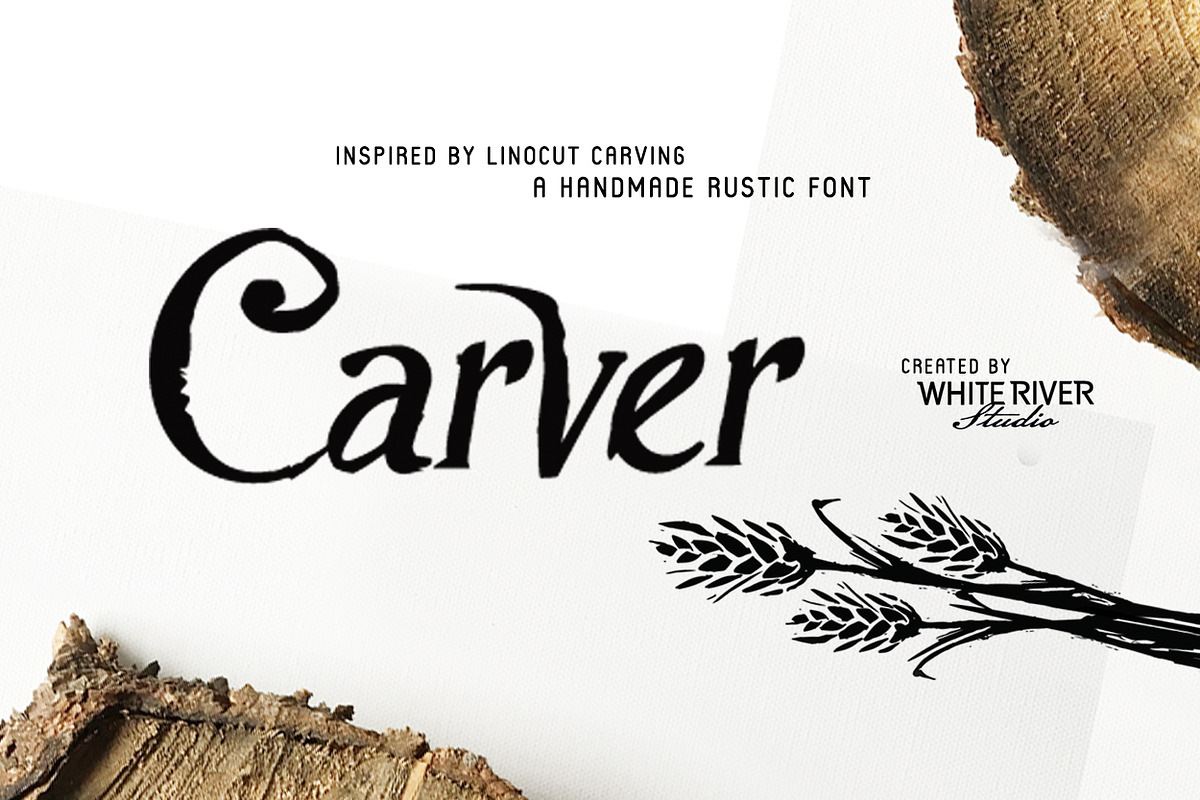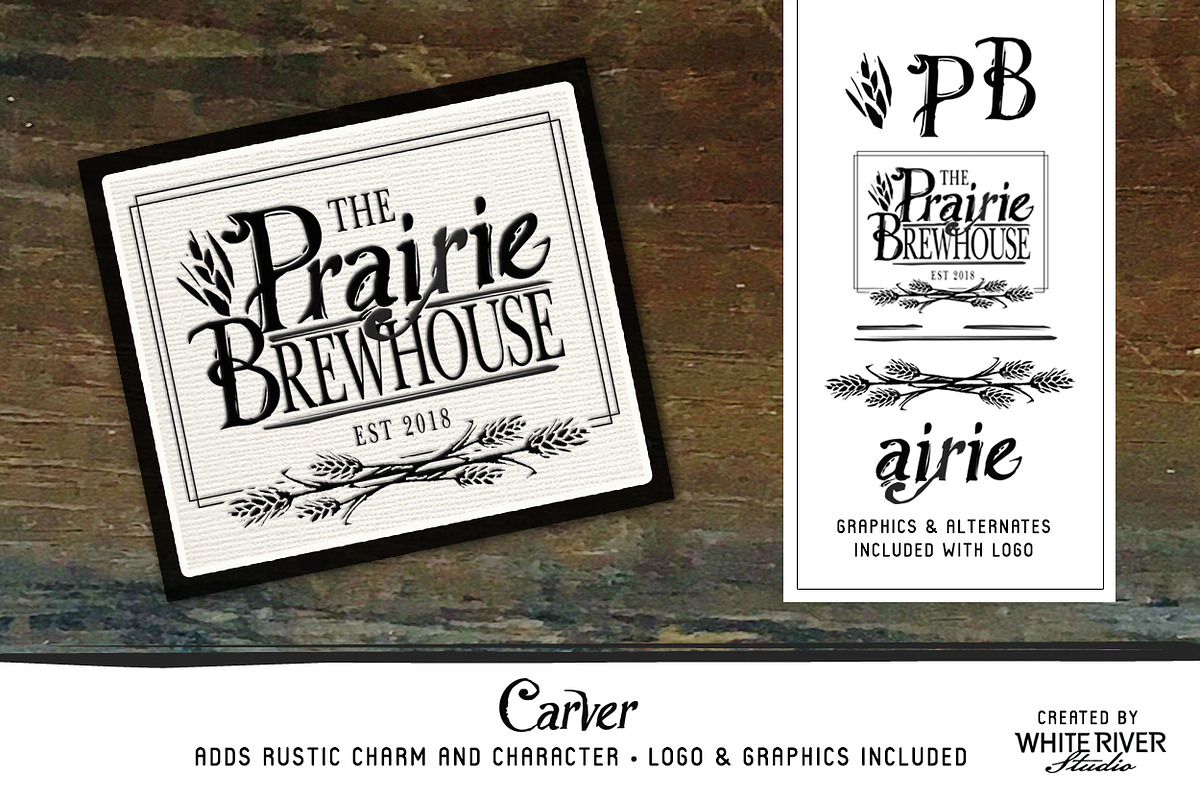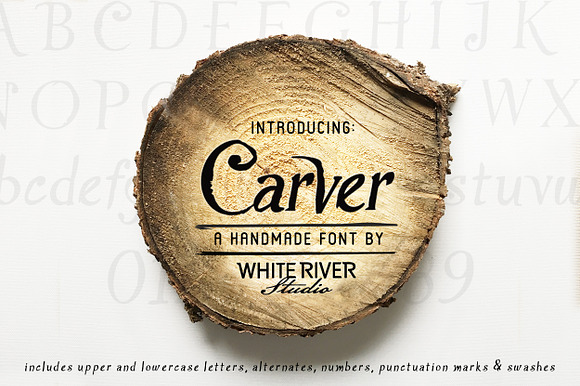
Carver Font + Extras
CARVER FONT + LOGO AND GRAPHICS Carver is a rustic handmade font inspired by linocut carvings. Designed to add instant charm and character, Carver is ideal for logo and packaging design applications. Carver includes uppercase, lowercase, numbers, symbols, punctuation marks, alternate characters and swashes. A bonus logo design and graphics are also included in the download.
- Carver includes uppercase, lowercase, numbers, symbols, punctuation marks, alternate characters and swashes.